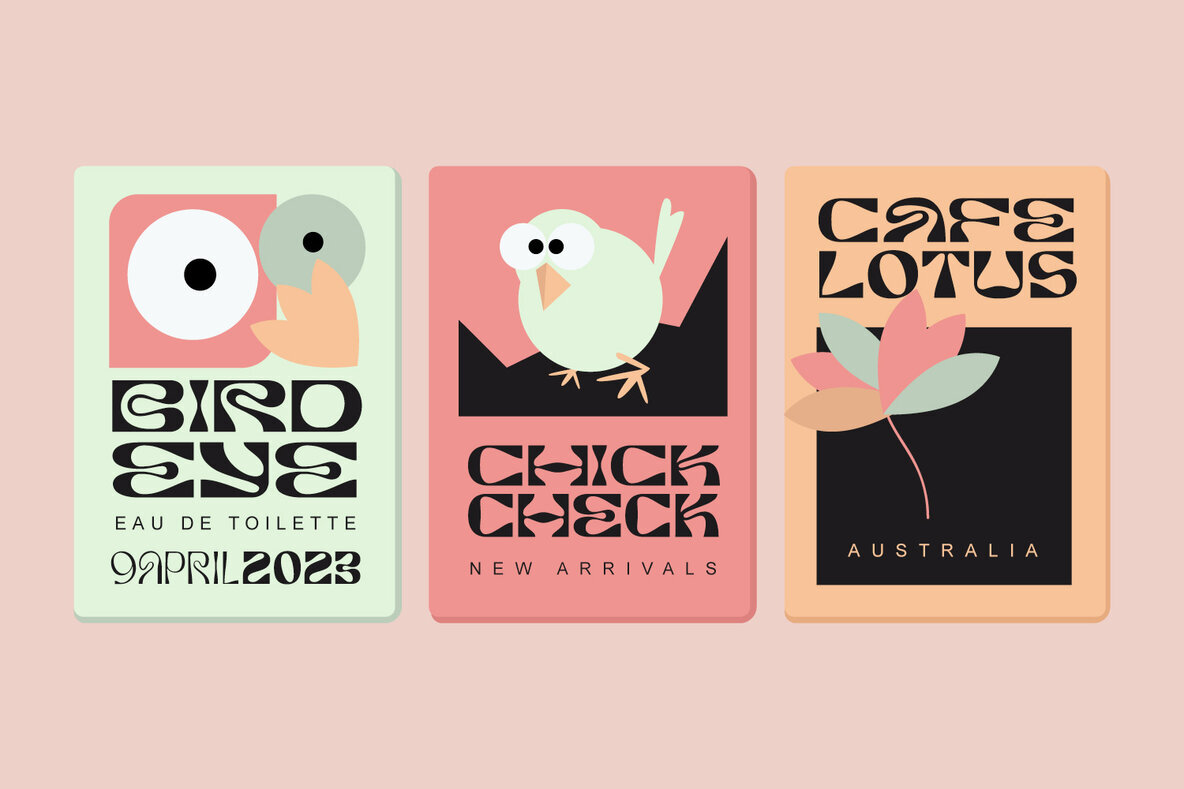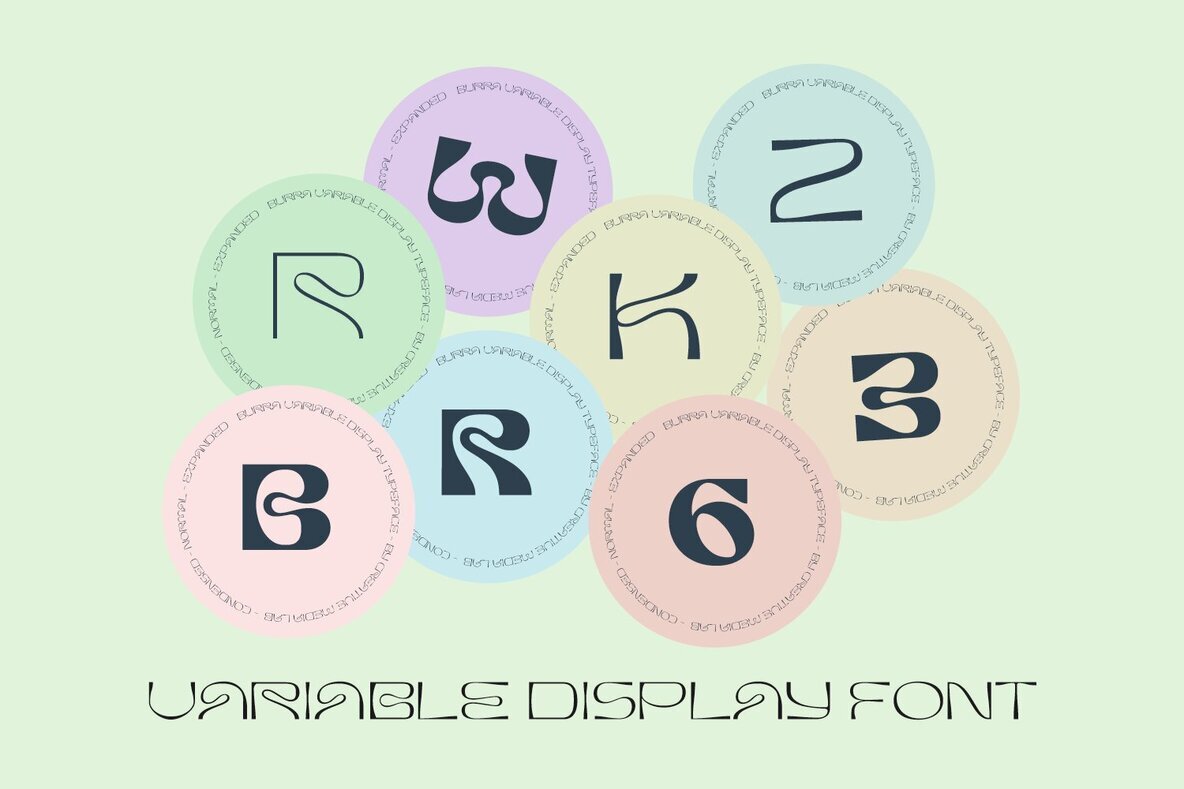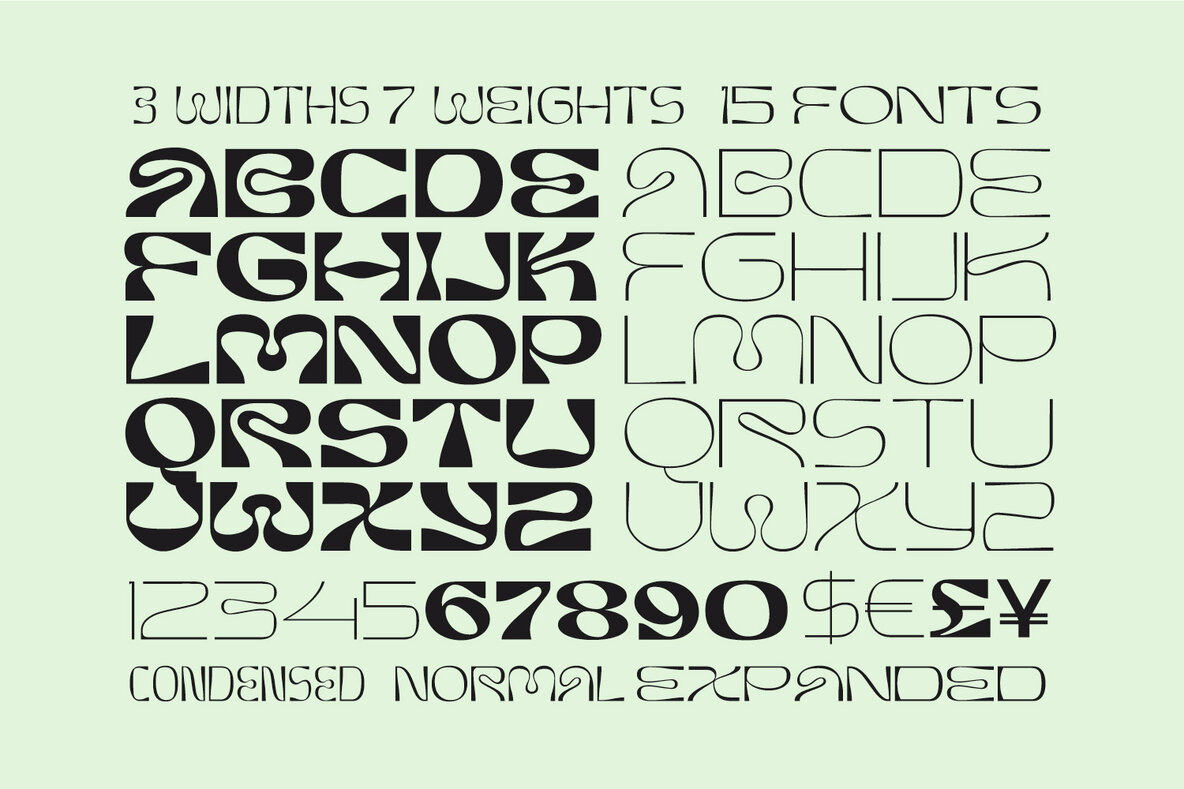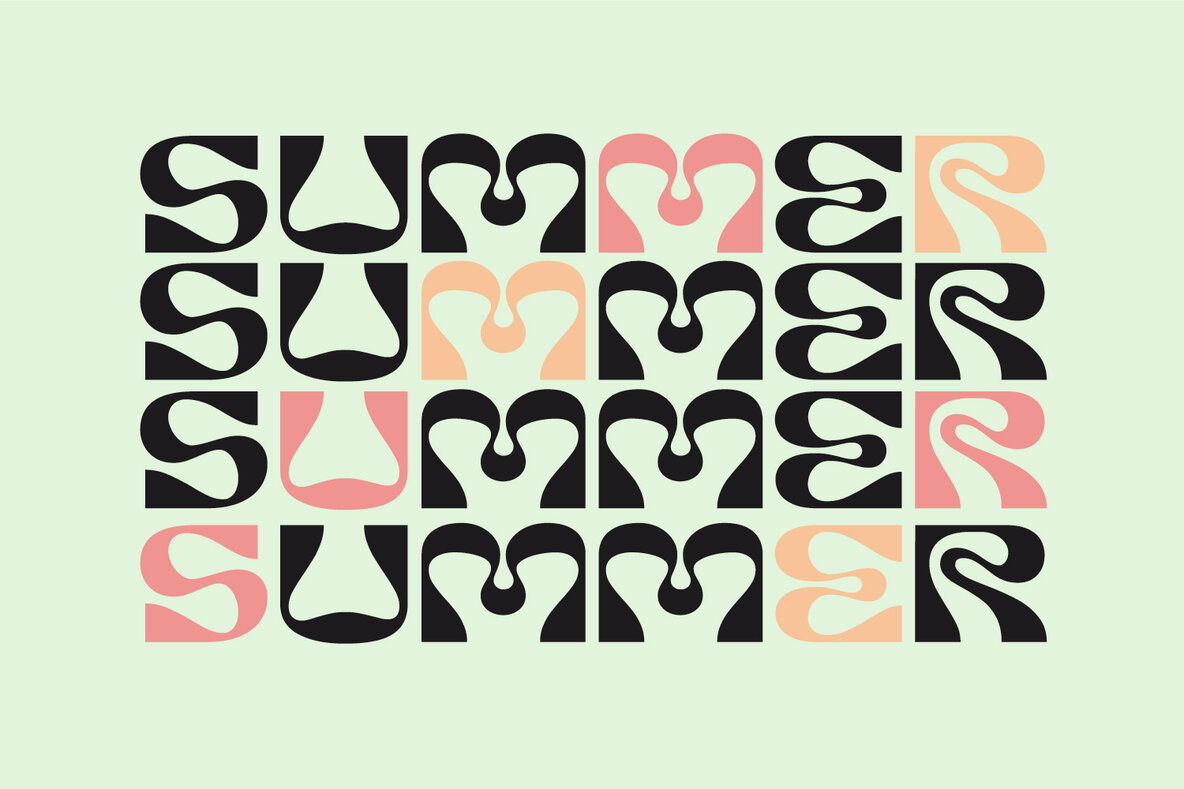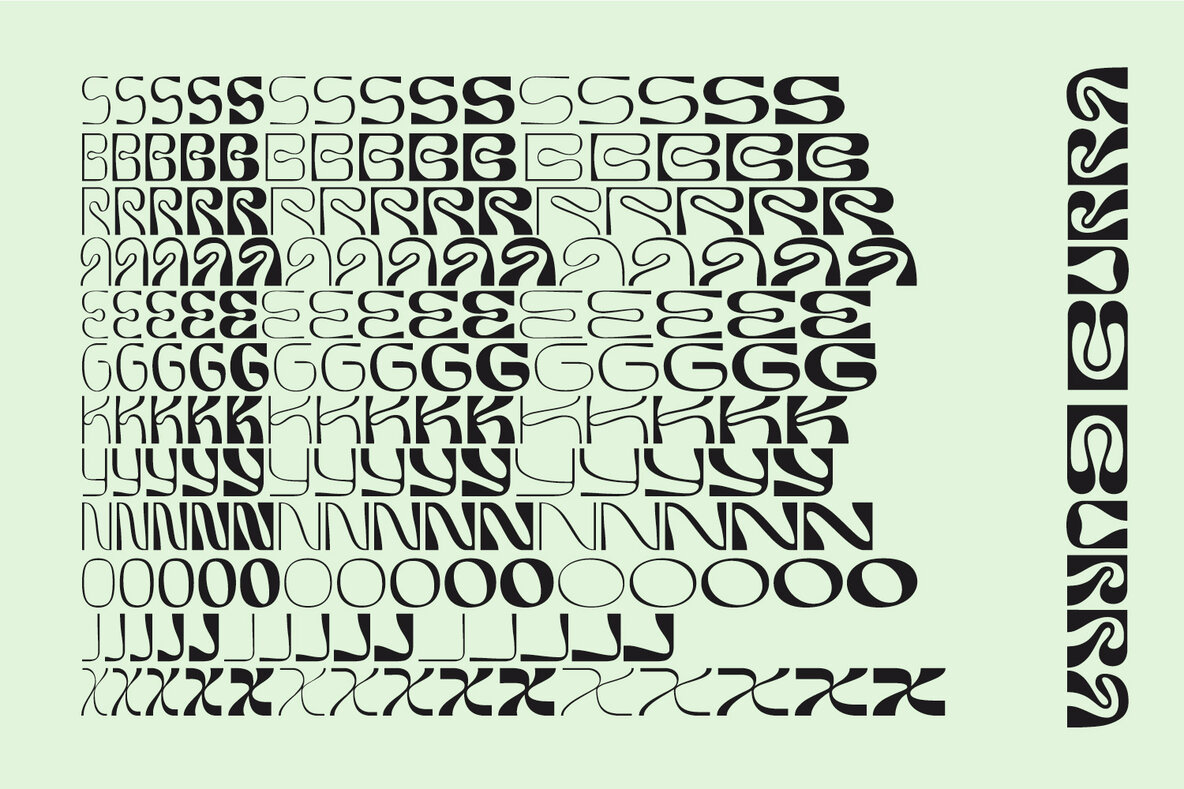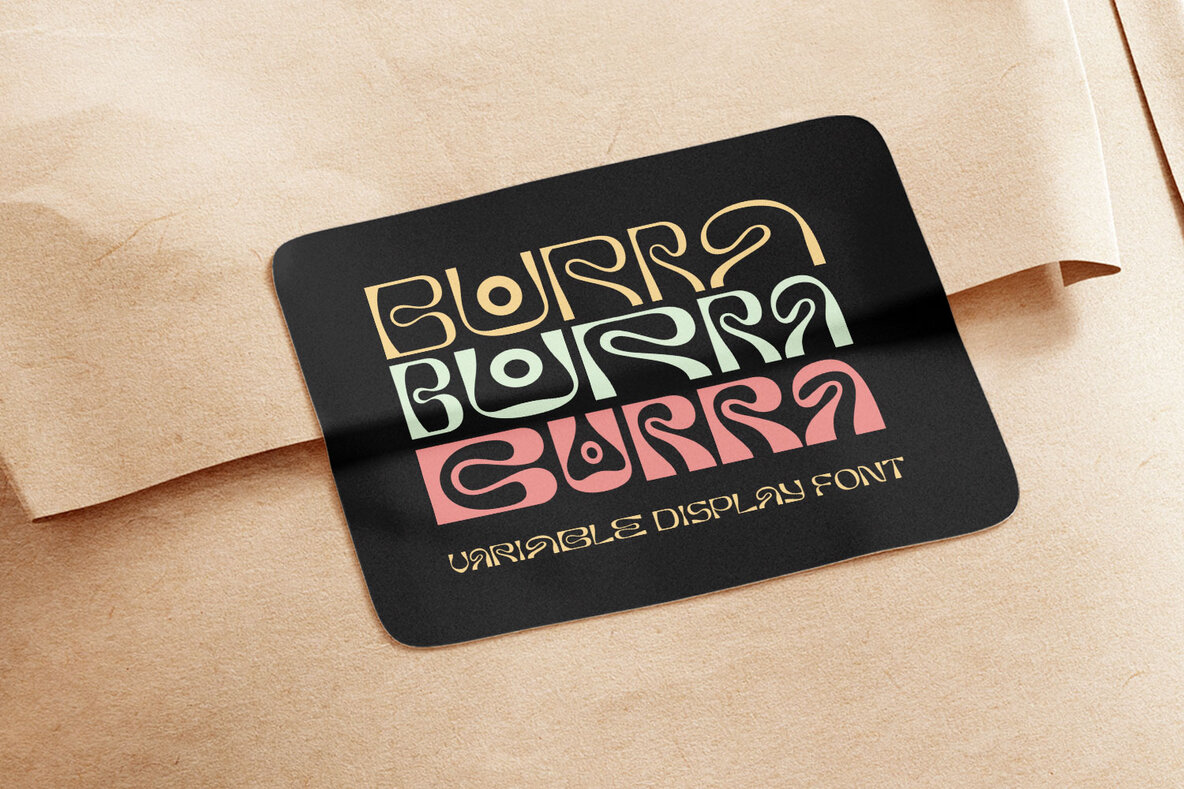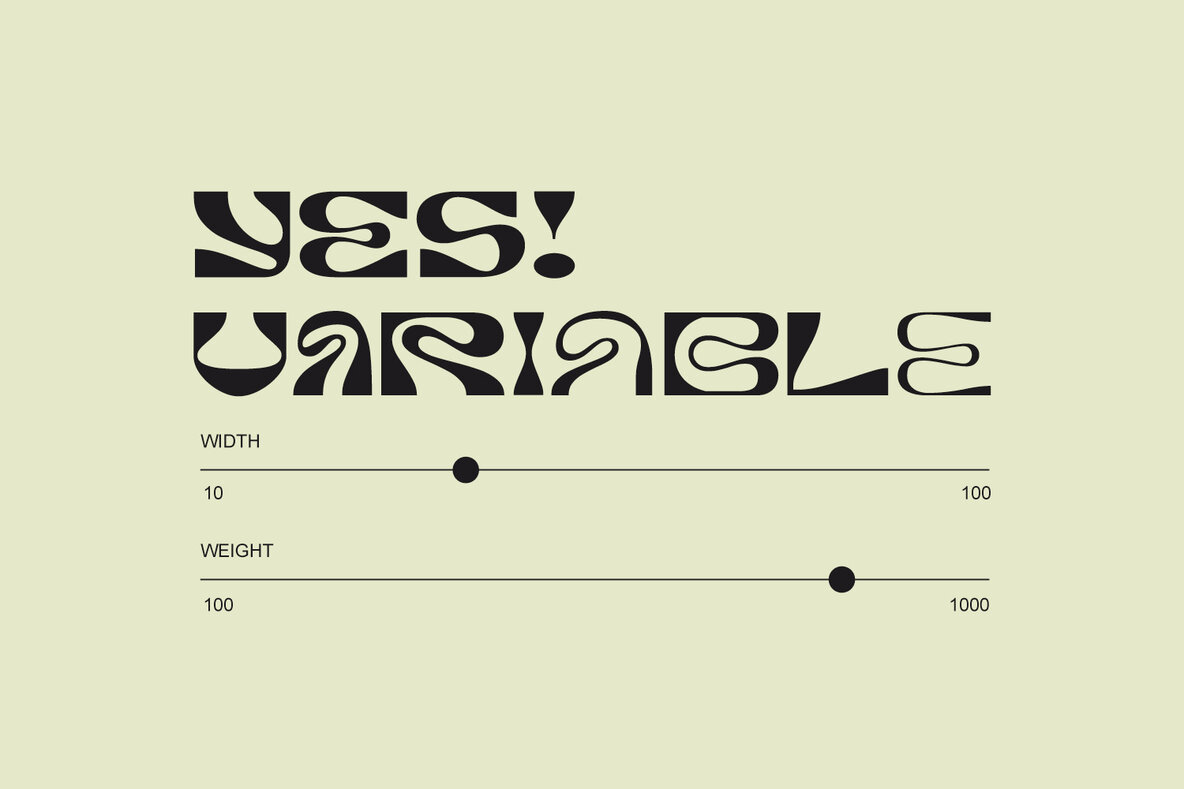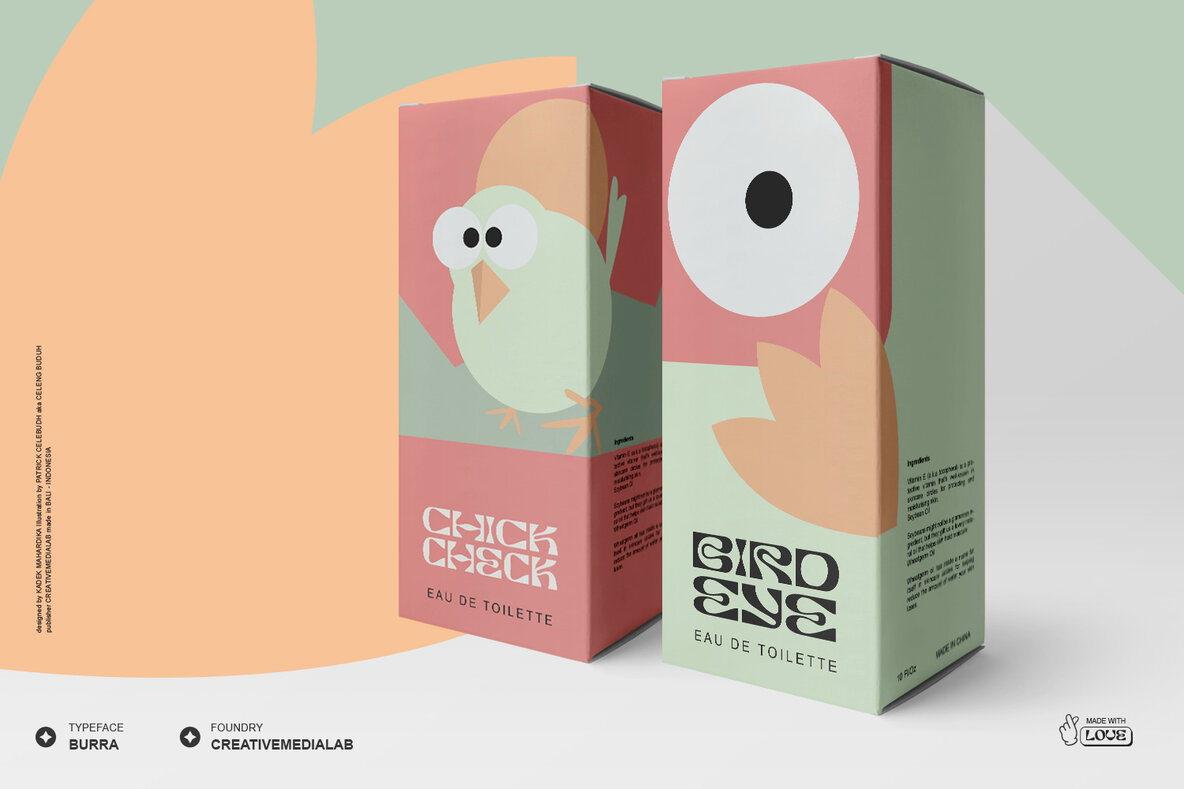
Burra Font
Experience the Psychedelic Look with Burra's Wavy Alphabet
Burra is a variable display font that brings a fresh, fun, and lively vibe to your designs. With its wavy psychedelic look, this font is perfect for those who want to add a touch of creativity and playfulness to their projects. Burra's all-caps alphabet is inspired by liquify and water strokes, creating a unique and distinctive visual style that will make your text stand out.
Customize Your Text with Burra's Variable Features
Burra consists of three widths and five weights on each, providing a total of 15 fonts. As a variable font, Burra officially known as Open-Type Font Variations, enables you to generate lots of width and weights with the two available slider axis. You can customize the width and weight of your text effortlessly to match the tone and mood of your design. Whether you want bold headlines or subtle body text, Burra gives you the freedom to experiment and explore.
Unleash Your Creativity with Burra's Versatility
Burra is not just a font; it's a tool that unleashes your creativity. This font is perfect for clothing, book covers, titles, and more. Whether you're creating a retro-style poster or a modern website, Burra's playful and versatile nature will make your design pop. With its variable features and wavy alphabet, Burra is a font that will add a touch of uniqueness and personality to any project.